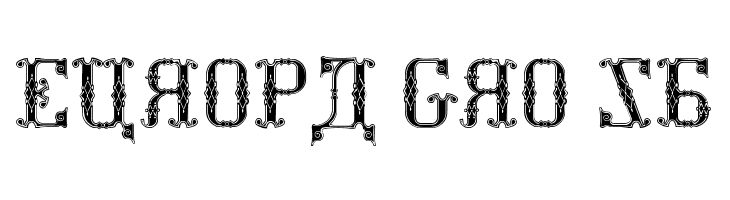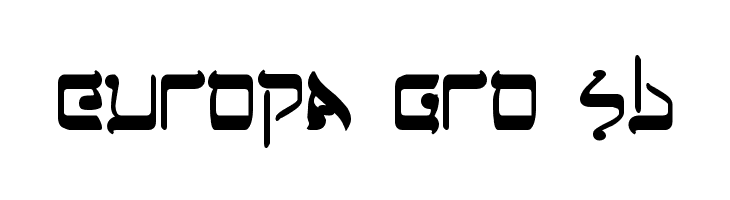
A bold, decorative font with intricate, angular designs.
A decorative font inspired by Jawi script, featuring intricate ornamental details.
A bold, decorative font with rounded shapes and intricate curves.
An ornate and decorative font with calligraphic influences, featuring intricate swirls and loops.